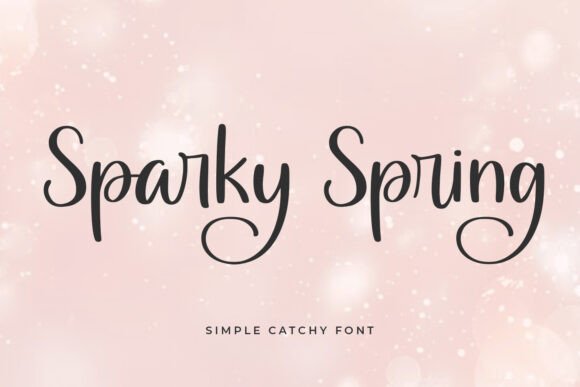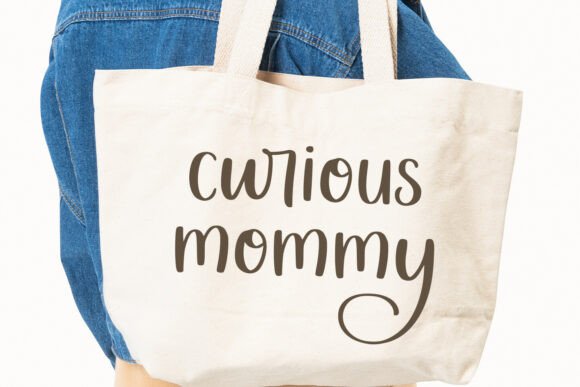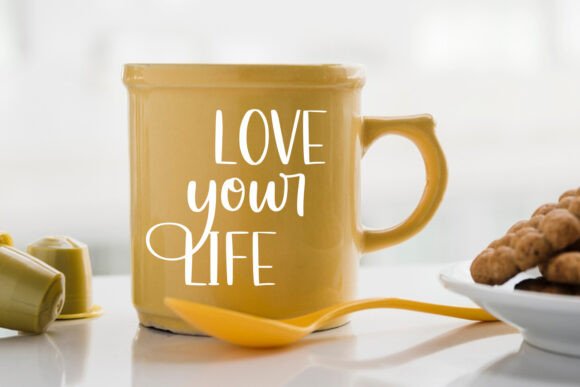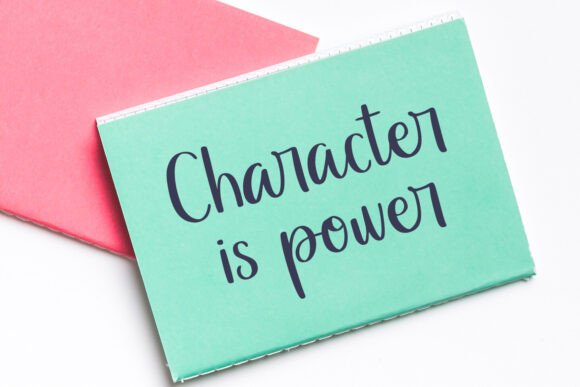
Sparky Spring Font
introducing SPARKY SPRING – simple catchy font- SPARKY SPRING is great for branding, quotes, logos, t-shirt designs, tote bag designs, cards, banners, social media, and more.What’s included?– SPARKY SPRING (ttf, otf, woff) Features: – Uppercase – Lowercase – Numeral – Ligatures – Multilingual Support – Punctuation – PUA encoded regards, Abo Daniel Studio